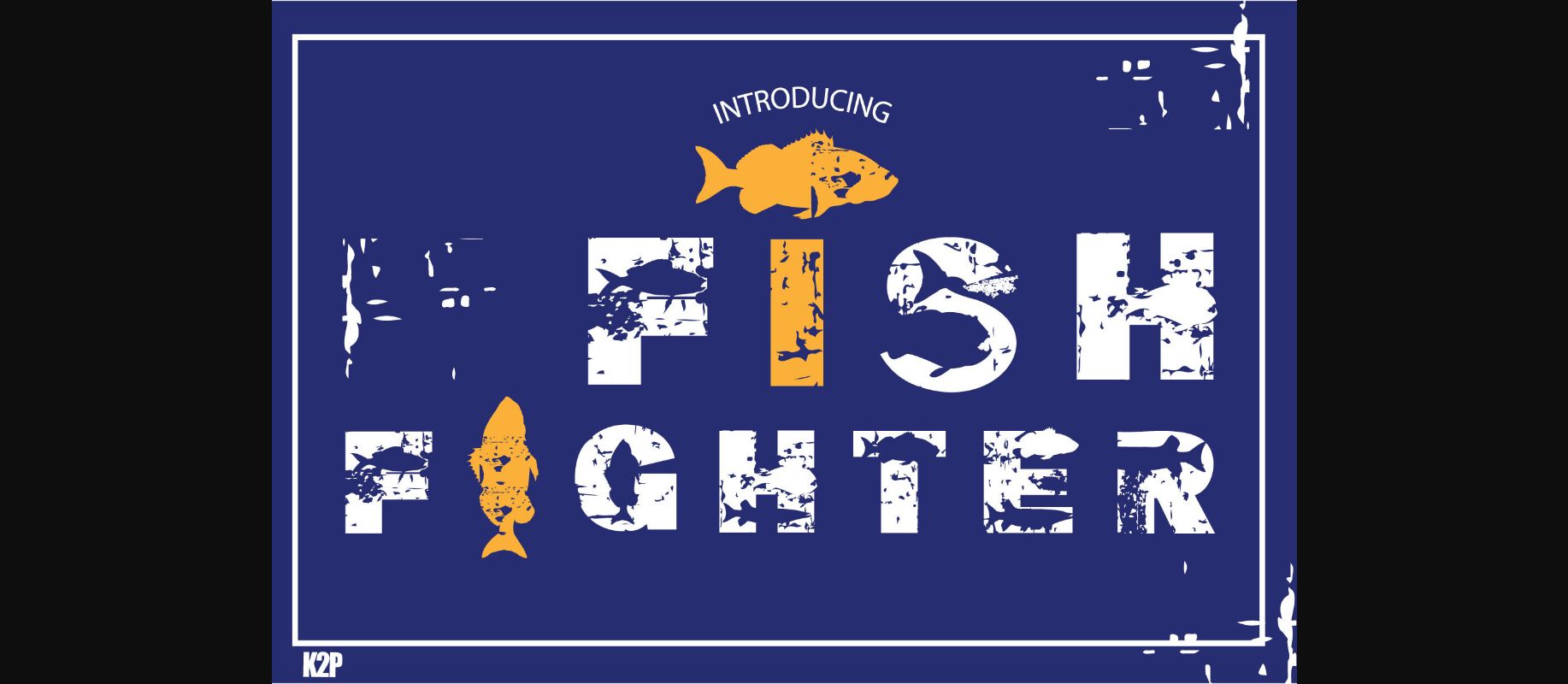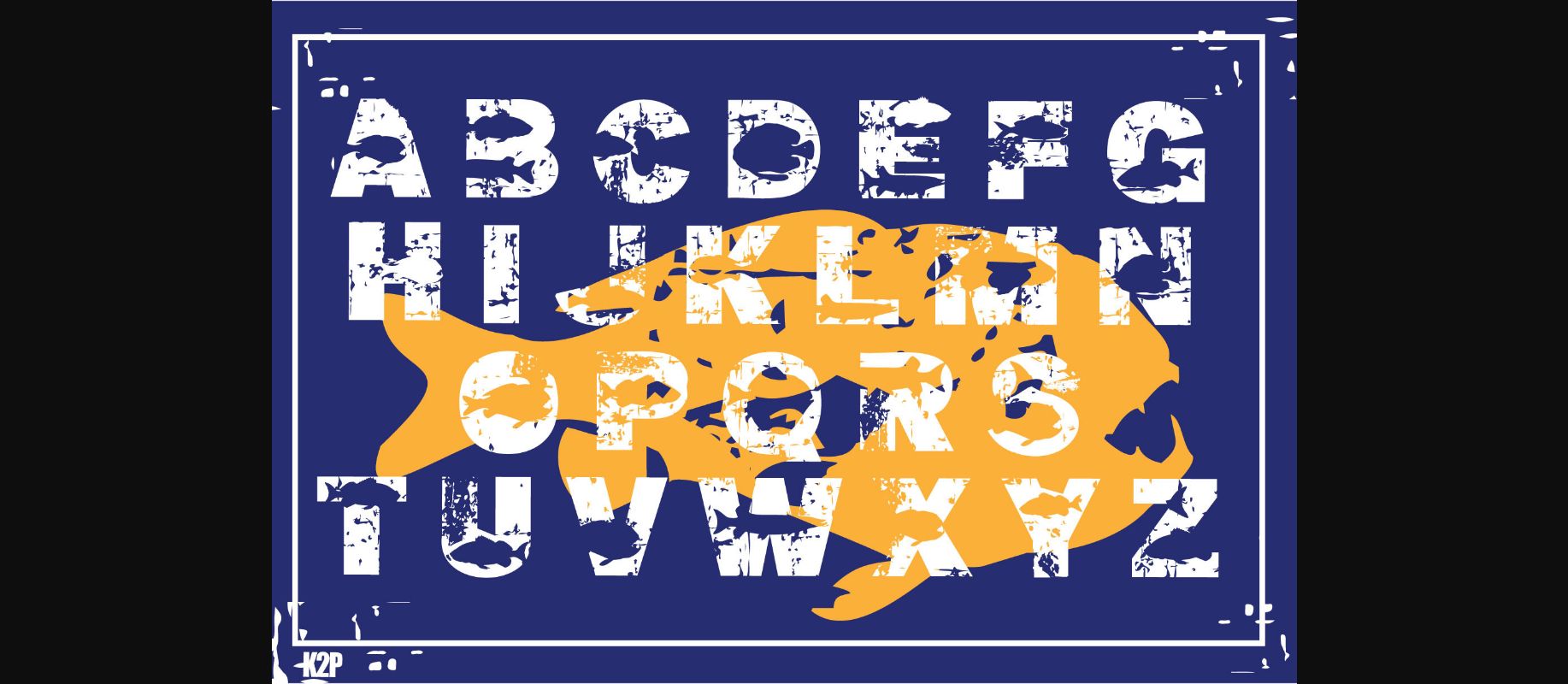
About Fish Fighter Font
Fish Fighter is a rough textured and assertive decorative font. It is perfect for various design ideas related to fishing, camping, or both. Have fun with this beautiful font, and explore its endless variations! This font is PUA encoded, which means you can access all of the glyphs and swashes with ease!